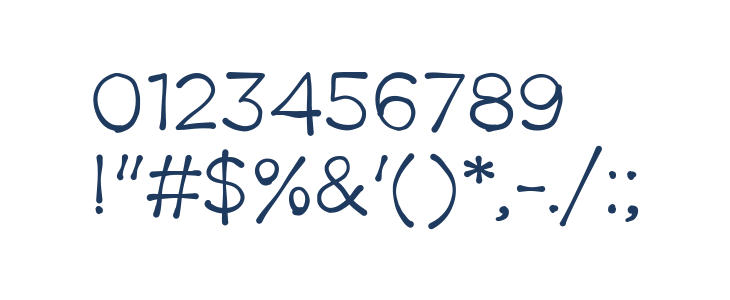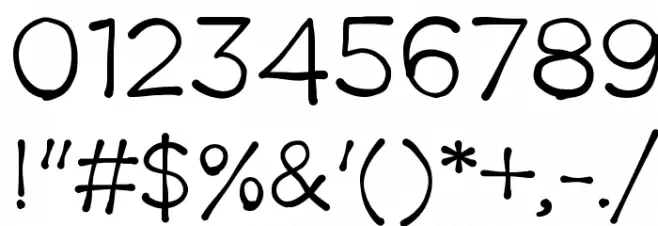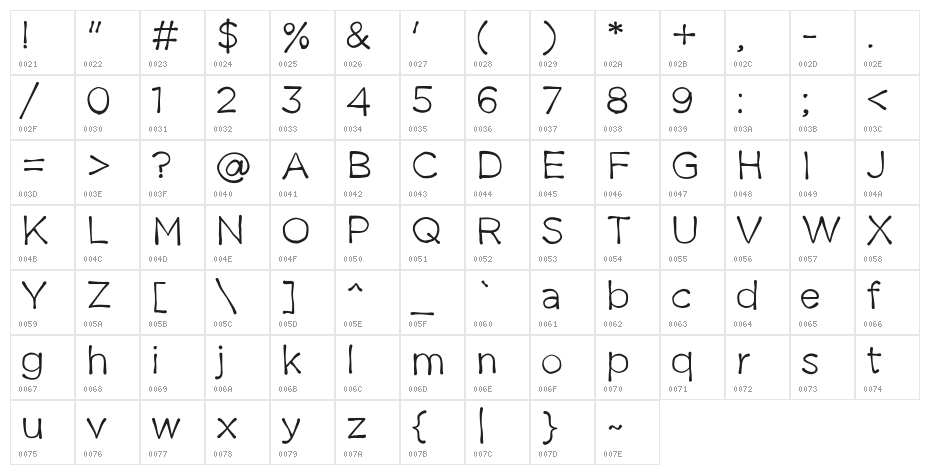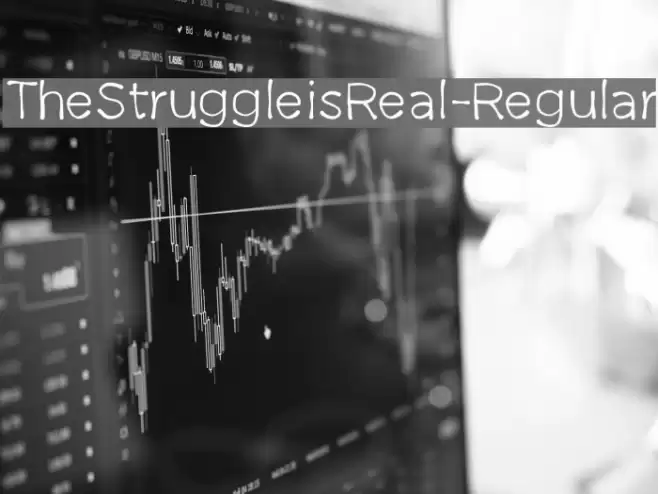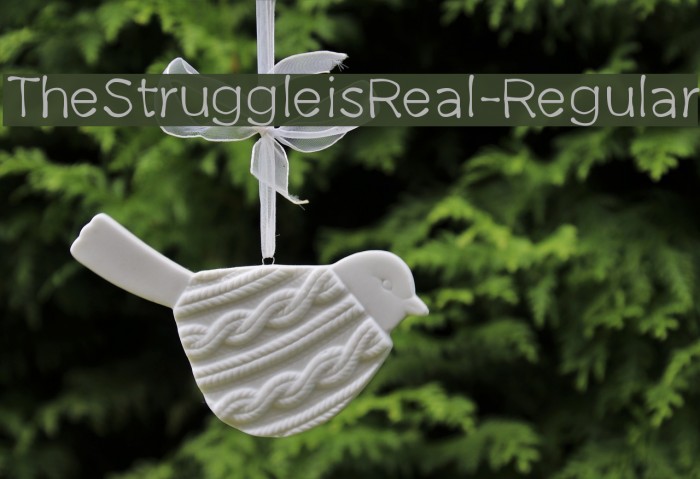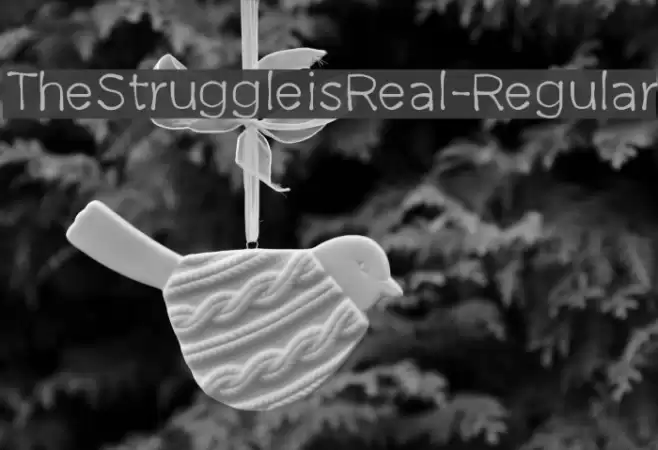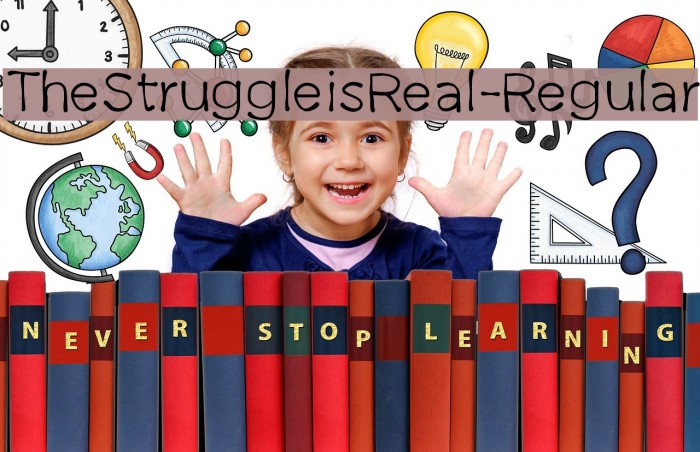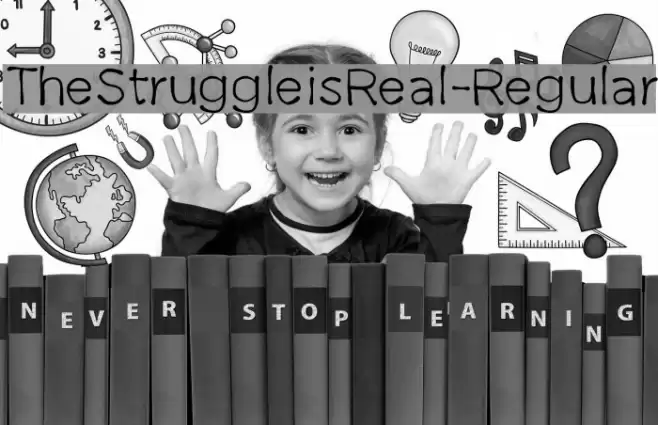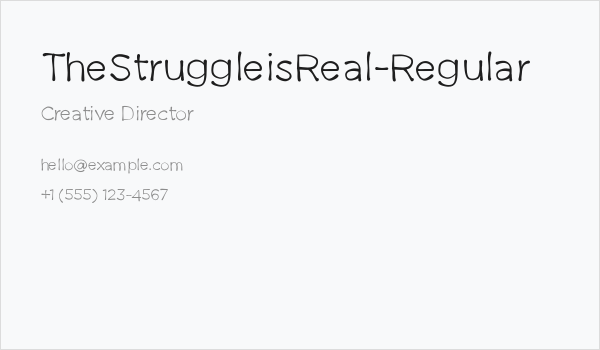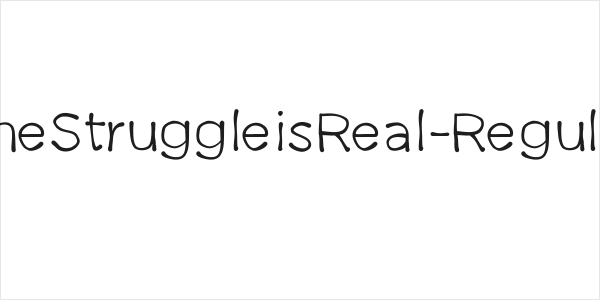
TheStruggleisReal-Regular Font
TheStruggleisReal-Regular Description
This font features a playful and casual handwritten style, characterized by its uneven strokes and slightly irregular letterforms. The uppercase letters are bold and prominent, while the lowercase letters maintain a consistent flow, adding to the font's informal charm. The numbers and special characters are crafted with the same whimsical touch, making them easily readable yet distinct. The overall appearance is friendly and approachable, suitable for projects that require a personal or informal tone. The font's unique style makes it stand out, adding a touch of creativity and individuality to any design.
| Proposed Projects | Ideal for greeting cards, children's books, casual invitations, and playful branding. |